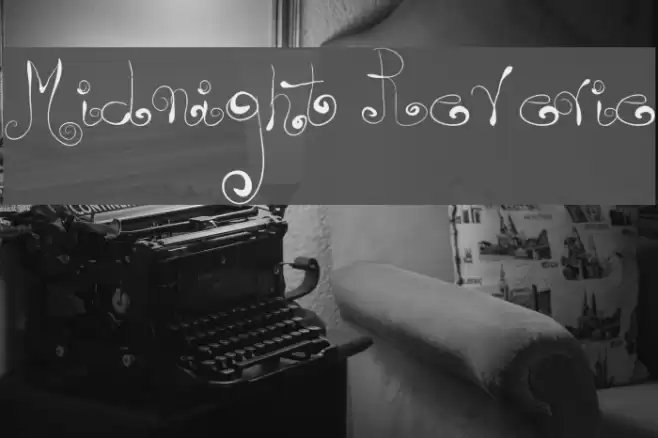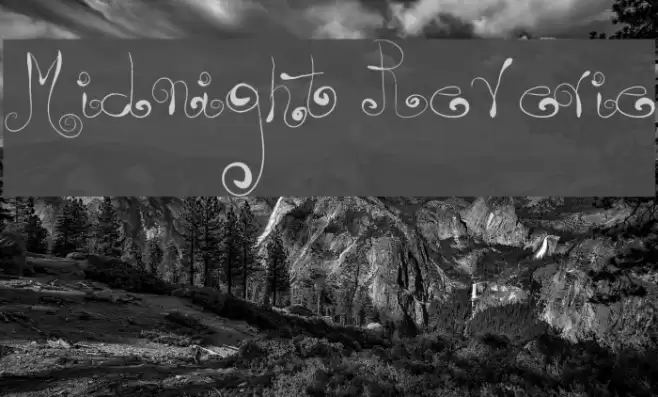
Midnight Reverie Font
Midnight Reverie Description
This whimsical and artistic font features a unique blend of swirling, curly elements that give it a playful and enchanting appearance. The uppercase letters are characterized by their elaborate loops and flourishes, creating a sense of movement and fluidity. The lowercase letters maintain this whimsical style, with some characters extending into elegant, elongated forms. The numerals are more straightforward but still retain a touch of the font's signature style, ensuring consistency across all characters. Special characters are creatively designed, adding to the font's overall charm. This font is perfect for projects that require a touch of fantasy or a magical, storybook feel.
A whimsical, curly font with playful loops and flourishes from Uncategorized fonts.
- Proposed Projects: Ideal for fantasy book covers, children's storybooks, whimsical branding, and creative invitations.
- Overall Style: Whimsical, Artistic
- Use Case: Headlines, Logos, Decorative text